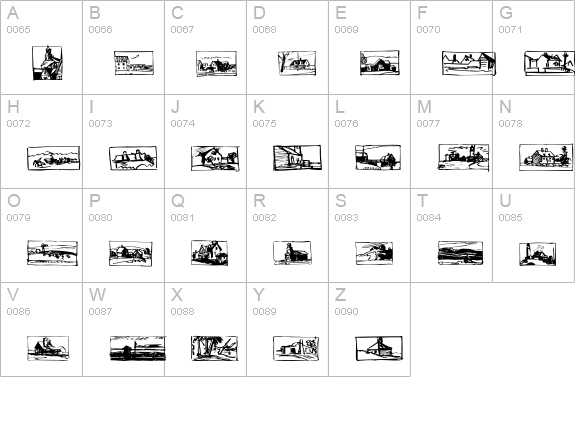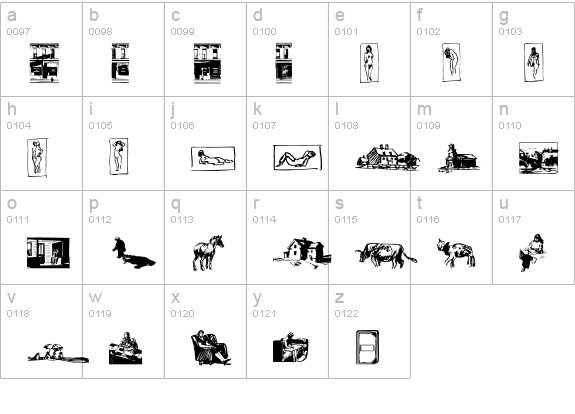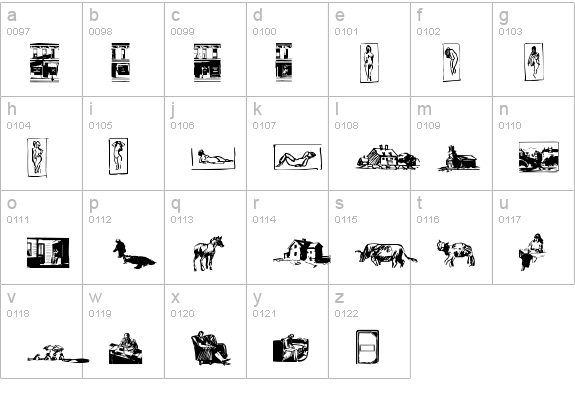
P22Hopper-Sketches font is an exceptional creation, showcasing a perfect amalgamation of artistry and innovation. Crafted with meticulous attention to detail, this font embodies the essence of hand-drawn sketches, exuding a raw and authentic charm. With its unique and organic strokes, P22Hopper-Sketches font captures the essence of free-flowing creativity. Each character is meticulously hand-drawn, giving it a distinctively artistic touch that sets it apart from the crowd. Its rough edges and imperfect lines evoke a sense of freedom and spontaneity, making it an ideal choice for projects that require a touch of artistic flair. This font is a versatile tool for a wide range of creative endeavors. Whether you are designing a logo, creating eye-catching posters, or adding a unique touch to your social media posts, P22Hopper-Sketches font is sure to make a lasting impression. Its handwritten style adds a personal and human touch to any project, making it feel approachable and genuine. One of the best things about P22Hopper-Sketches font is that it is freely available to download at FontsMarket.com. This means that you can unleash your creativity without any limitations or constraints. The accessibility of this font allows you to experiment and explore different design possibilities, ensuring that your projects stand out from the rest. In conclusion, P22Hopper-Sketches font is an exceptional typeface that brings the beauty of hand-drawn sketches to life. Its free-flowing lines and unique character make it a valuable asset for any creative project. Download it today at FontsMarket.com and let your imagination run wild with this remarkable font.